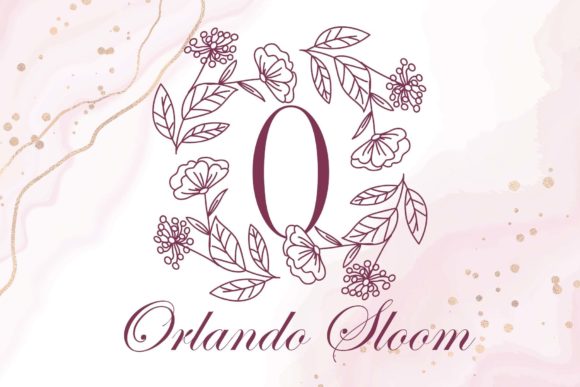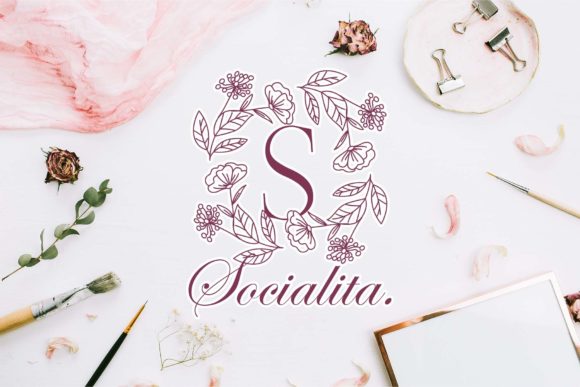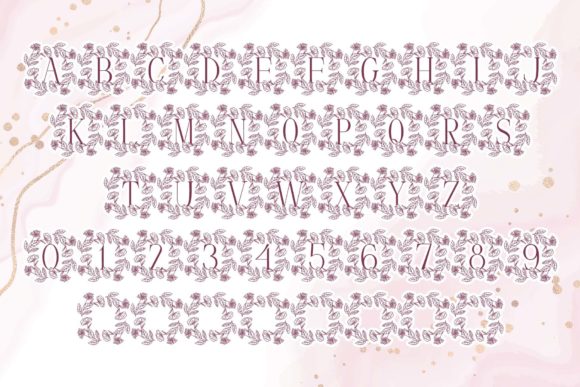
Flower Bloom Monogram is a dainty and unique decorative font.
Add this romantic and lovely looking font to each of your love letters, wedding invitations or favorite design ideas, and you will be astounded by the outcome .